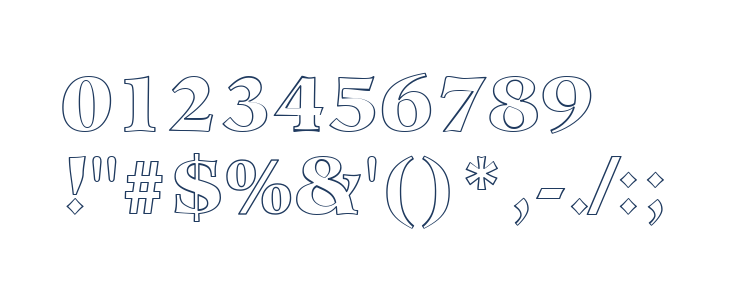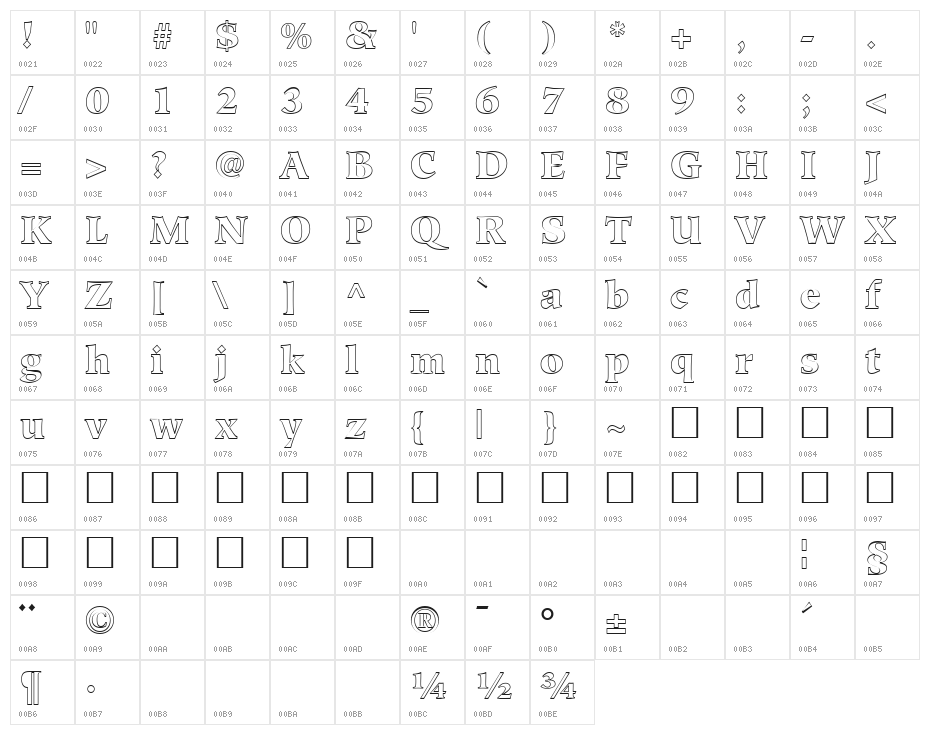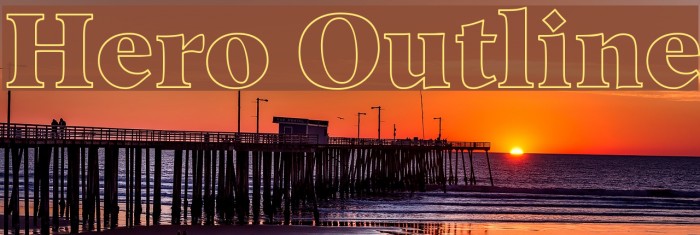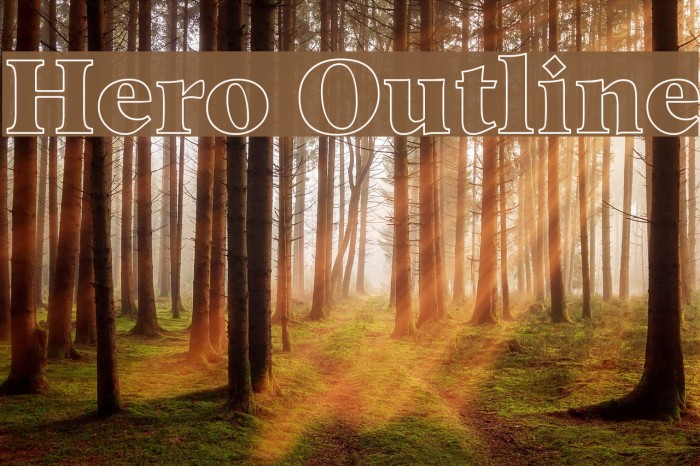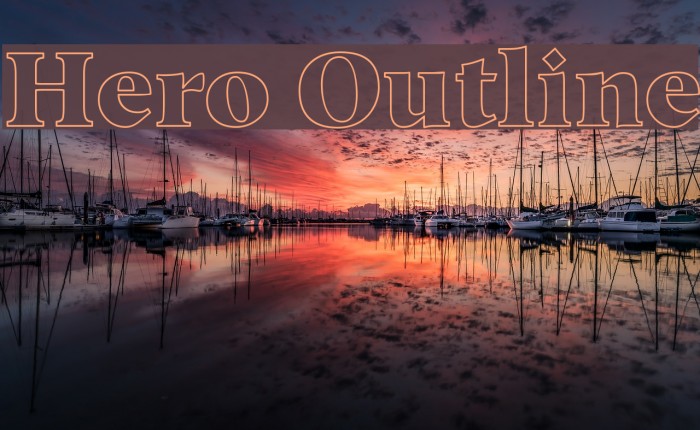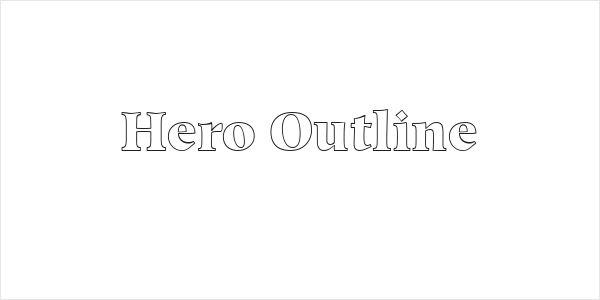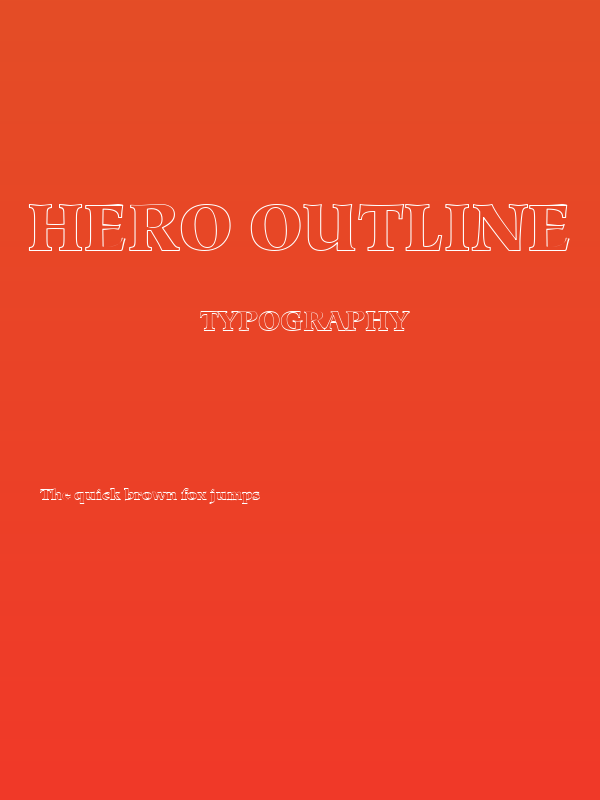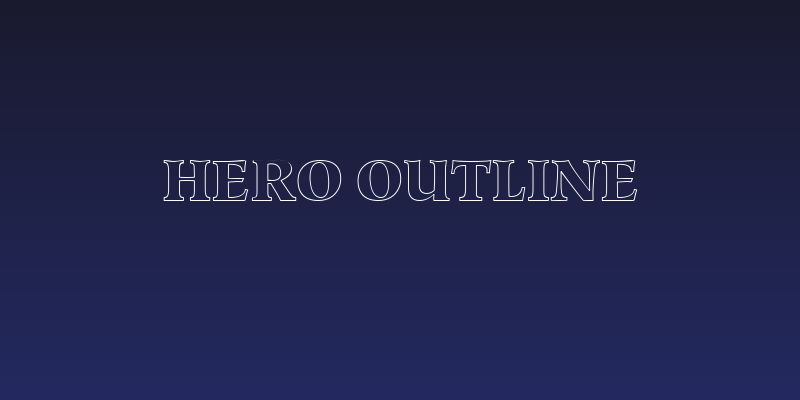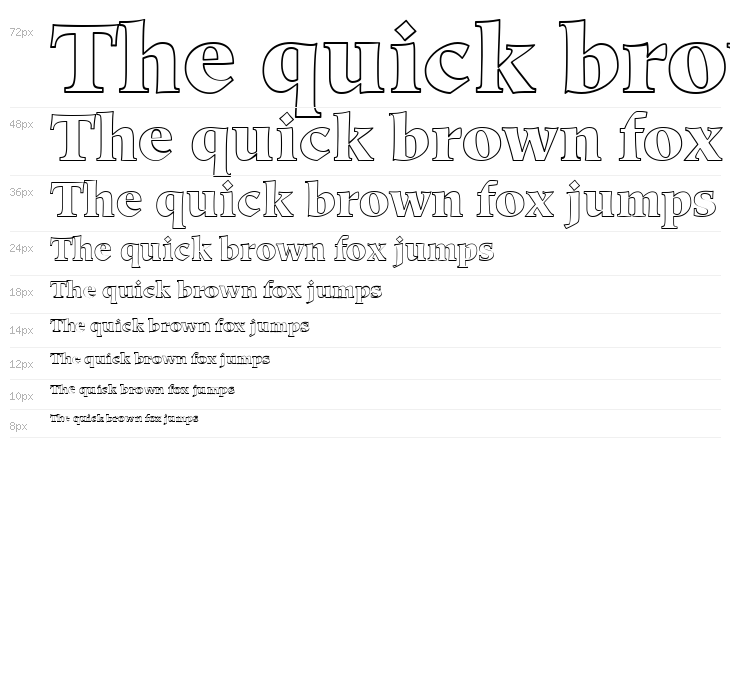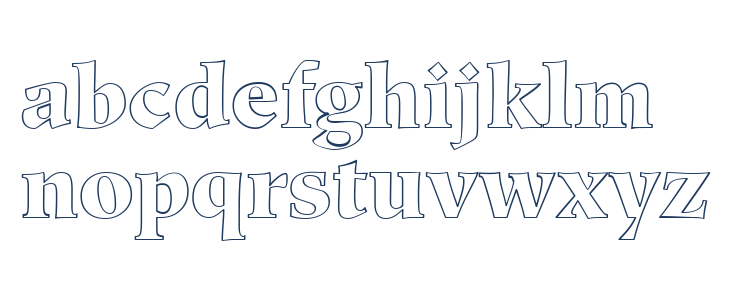
Hero Outline Font
Hero Outline Description
This font features a bold, outlined style that combines classic serif elements with a modern twist. The uppercase letters are strong and commanding, while the lowercase letters maintain a consistent flow, offering a harmonious balance. The numerals are clear and distinct, making them easily readable. Special characters are well-defined, adding versatility to the font. The outline design gives it a unique, eye-catching appearance, suitable for various creative applications.
| Proposed Projects | Ideal for branding, headlines, posters, and any design needing a striking, modern serif look. |